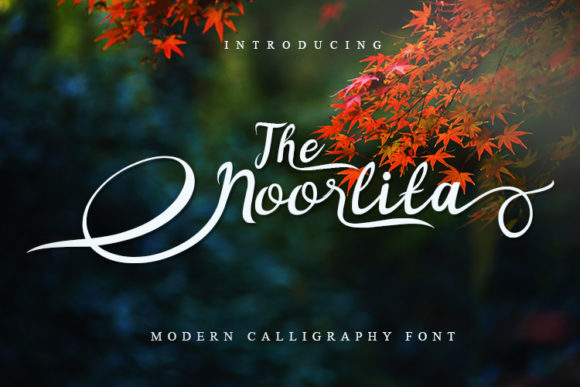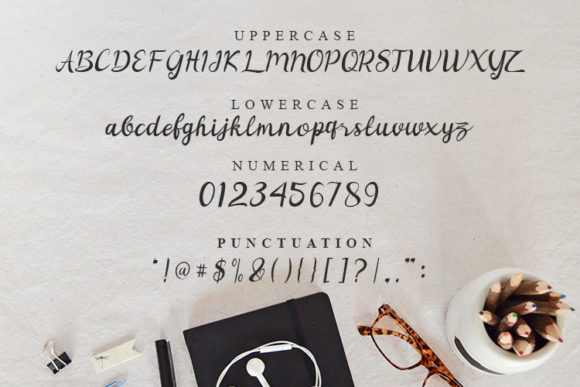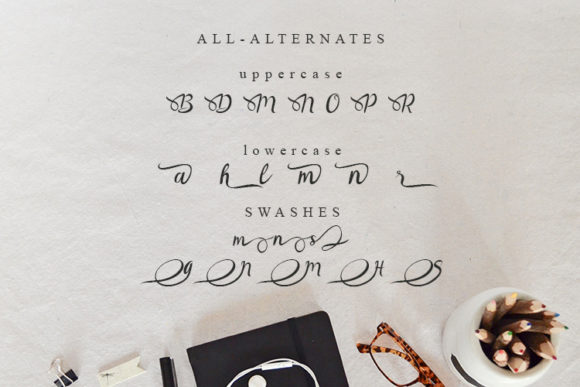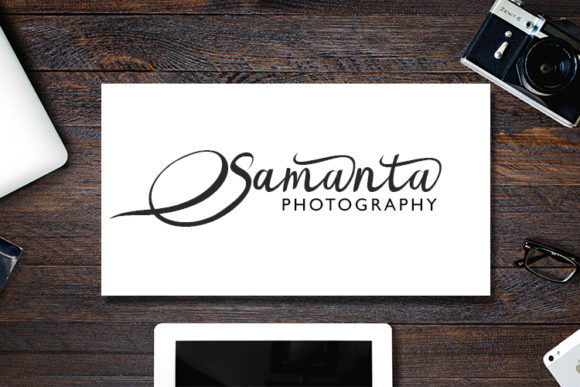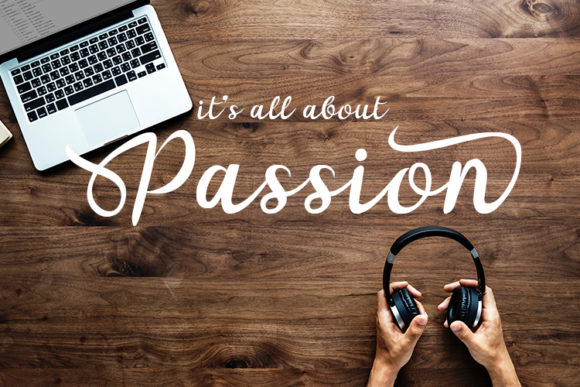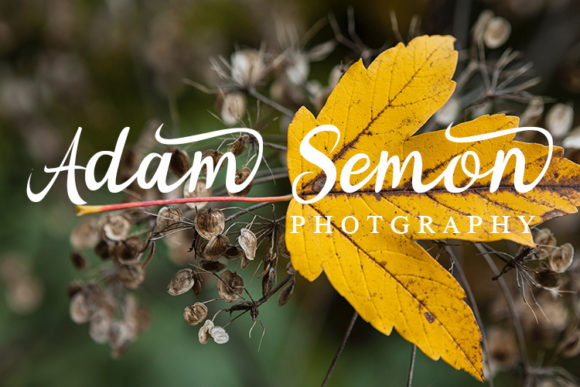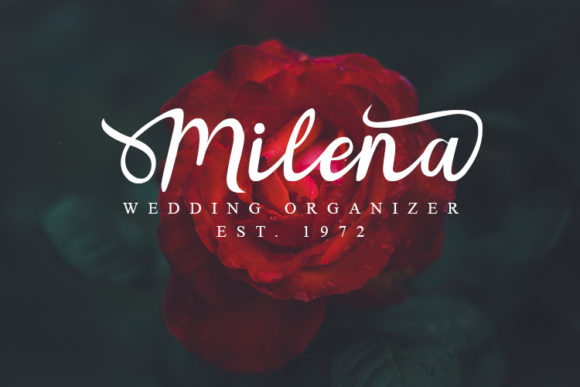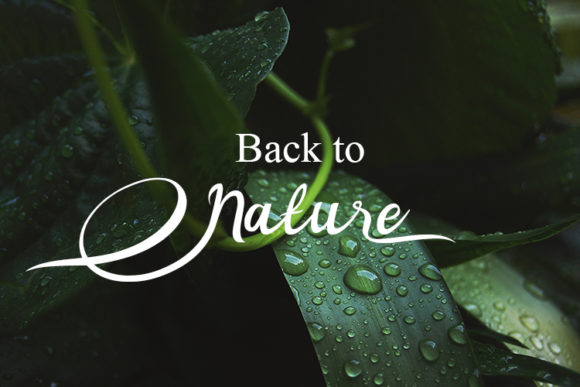
Noorlita Font
About Noorlita Font
Introducing The Noorlita, a beautiful script font that stands out with its luxurious feel and decorative characters. This font is more than just a typeface; it’s a design asset that adds a touch of elegance and sophistication to your creative projects.
The Noorlita’s beauty lies in its script style, adorned with decorative characters that exude a luxurious quality. Each stroke and curve is crafted with care, creating a font that not only communicates but also elevates the visual experience of your designs.
This font finds its perfect application in projects that require a luxurious touch. Whether you’re working on invitations, branding materials, packaging, editorial design, or any other project that demands an upscale aesthetic, The Noorlita delivers with its refined and elegant script.
The decorative characters within The Noorlita offer additional embellishments, allowing you to add a bespoke and personalized touch to your designs. Whether you’re creating custom branding elements or enhancing the visual appeal of your content, these characters provide an extra layer of sophistication.
In conclusion, The Noorlita is more than just a font; it’s a design companion that brings a luxurious feel to your creative endeavors. Whether you’re crafting invitations, branding materials, or any project that requires an elegant touch, embrace the sophistication of The Noorlita and let it transform your designs into expressions of refined beauty.
It’s perfect for greeting cards, branding materials, business cards, quotes, posters, and more !